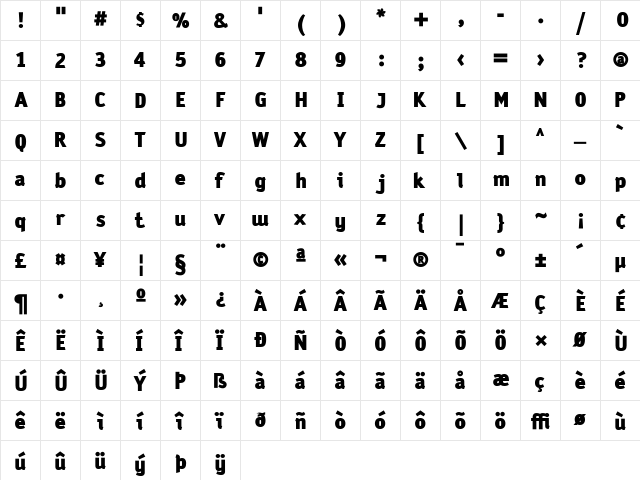
Sodium Black
Design Context for Sodium Typeface
Sodium is a composed and adaptable typeface that performs quietly and consistently across a wide range of design contexts.
Pro Tip: Pair Sodium with a font of contrasting weight or personality to build a more expressive typographic hierarchy.